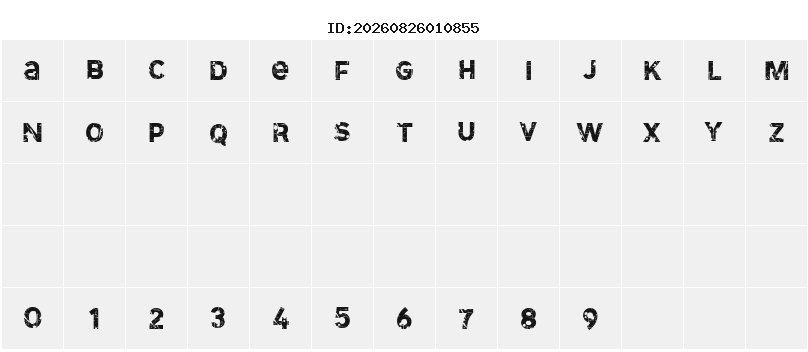
SD Cammello Demo Preview
• Font Name: SD Cammello Demo
• Full Font Name: SD Cammello Demo
• Designer: Justin Rotkowitz
• Manufacturer: Justin Rotkowitz
About SD Cammello Demo.ttf
SD Cammello Demo.ttf is a modern, elegant sans-serif font designed for ultimate readability and visual harmony. Perfect for branding, headlines, web design, and print materials.